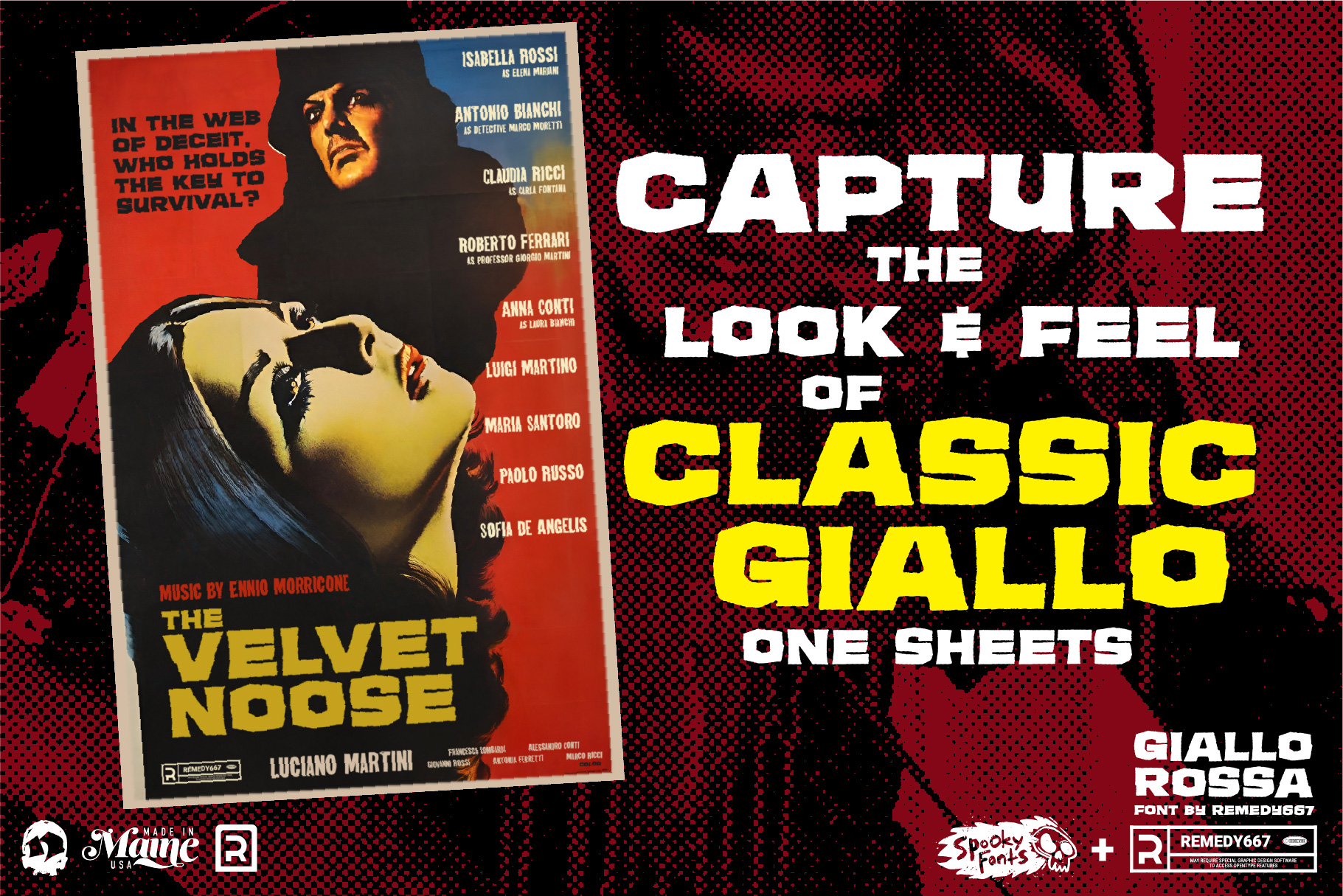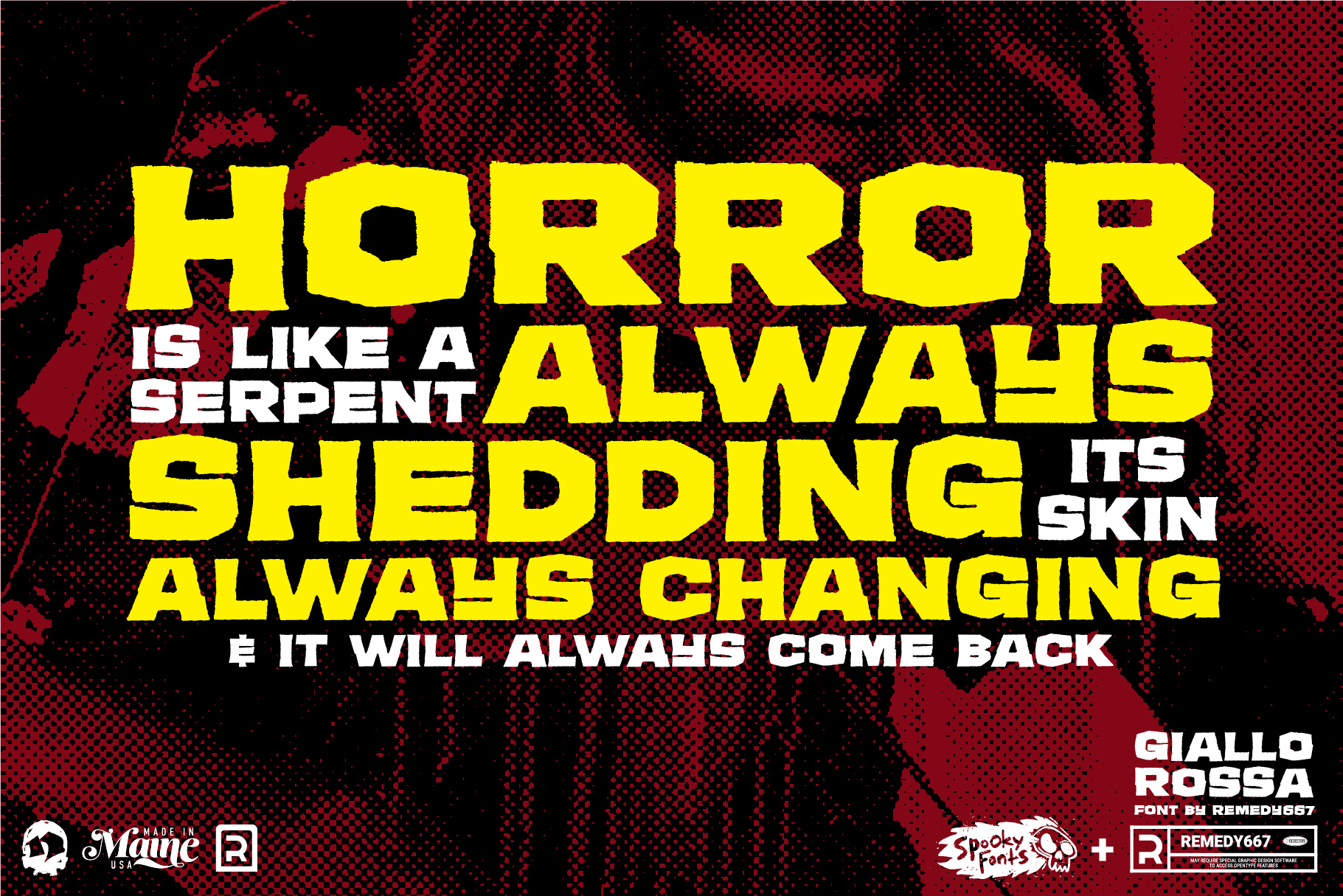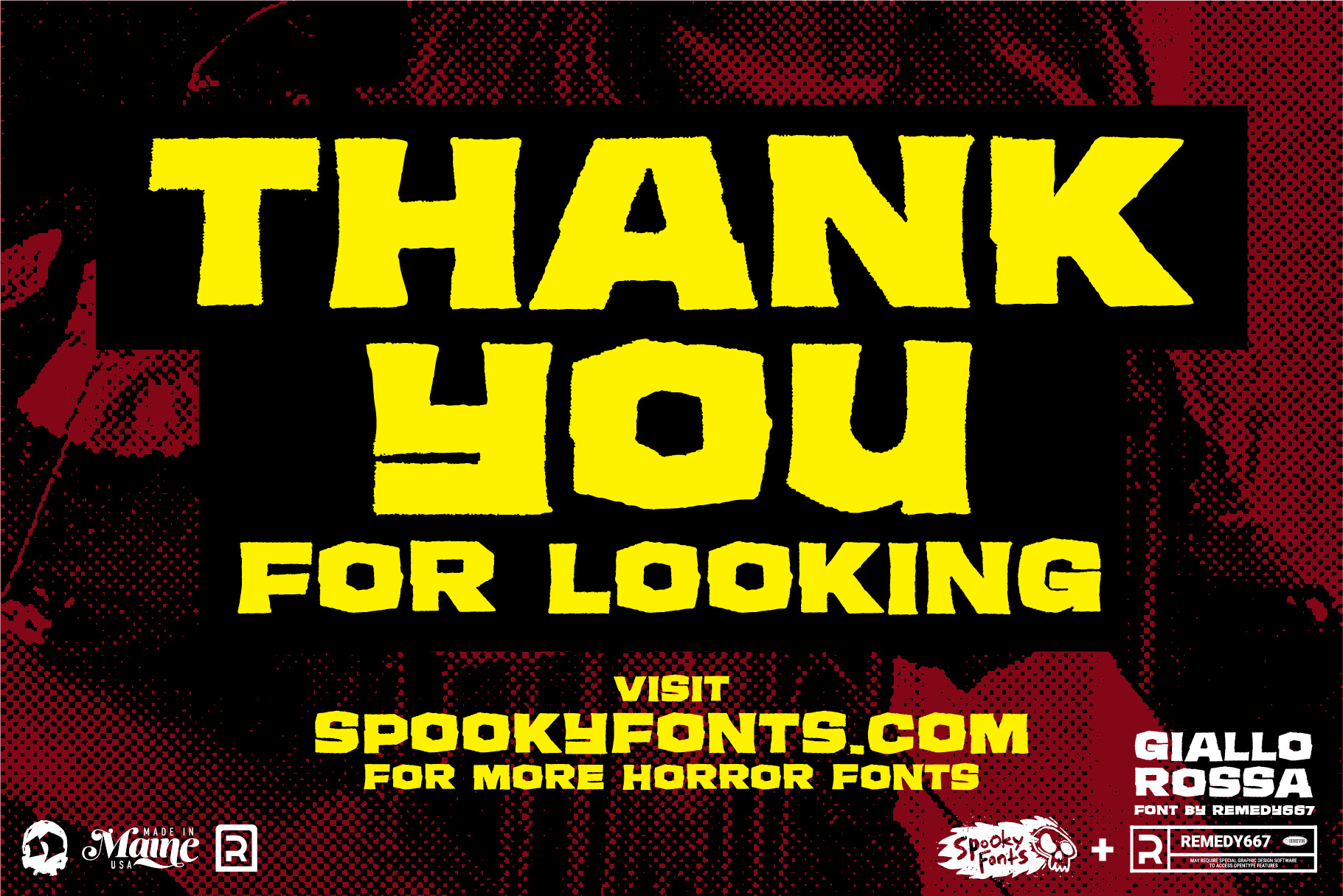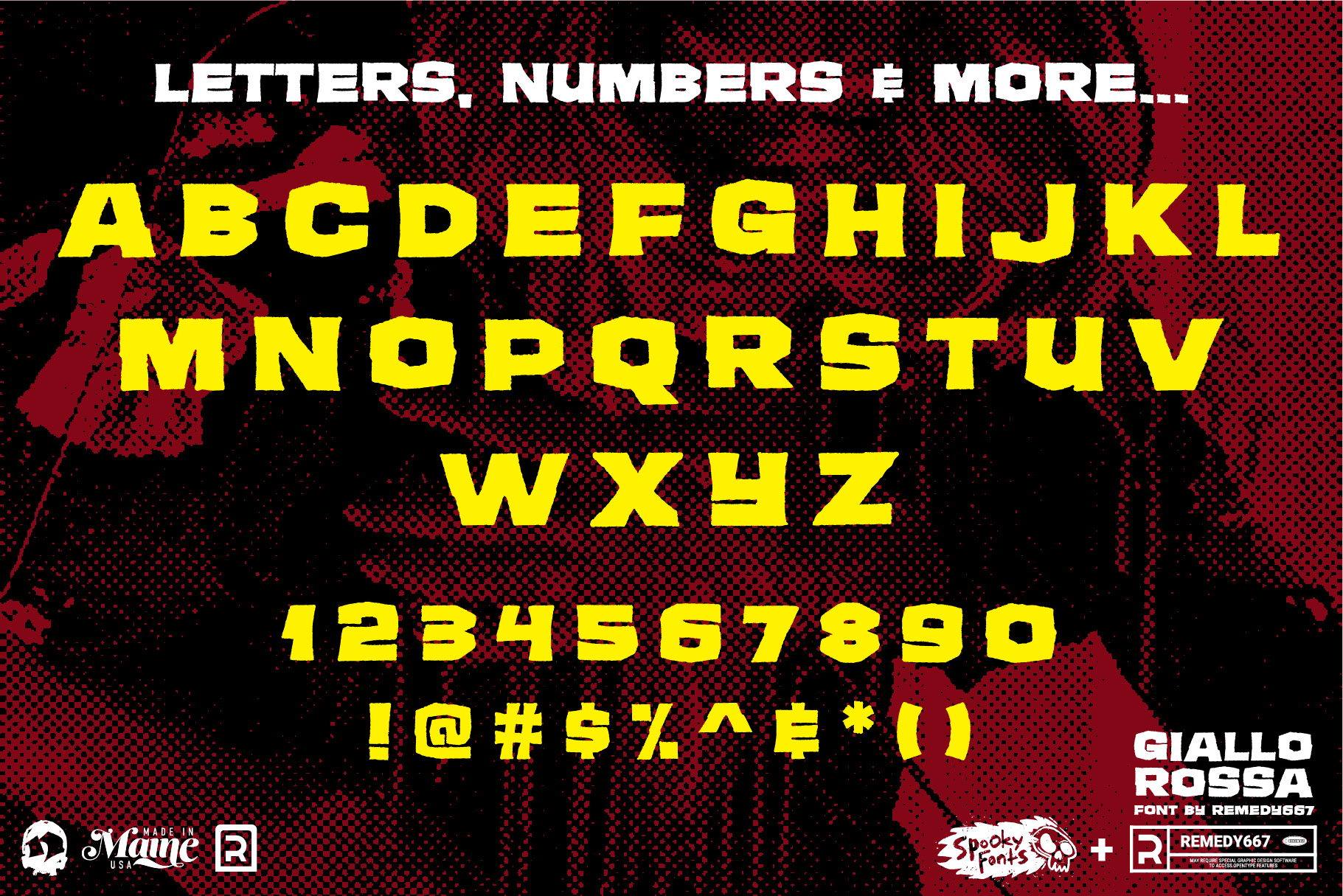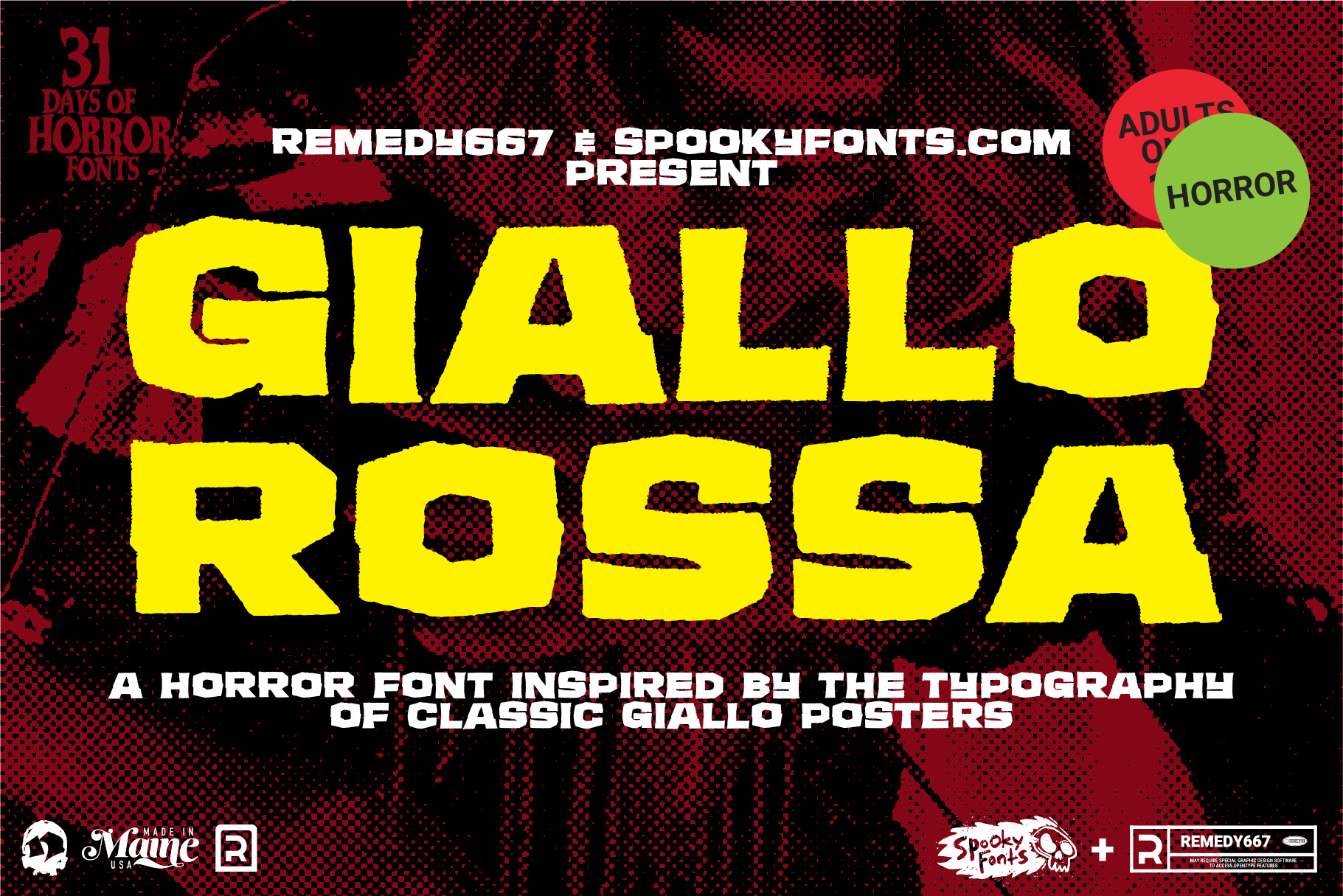
Giallo Rossa
Giallo Rossa: Chilling 70s Italian horror font.
Step into the chilling world of 70s Italian horror with Giallo Rossa, a giallo inspired typeface. This macabre creation captures the essence of classic Italian giallo films, evoking a sense of foreboding and terror in every letter. With its sharp edges and jagged lines, Giallo Rossa has an unsettling energy that will leave you mesmerized.
Immerse yourself in a typographic nightmare as you unleash the power of Giallo Rossa. Its letters embody the twisted beauty of giallo cinema – every curve reminiscent of a shadowy figure lurking in the dark corners. No matter what you’re designing, Giallo Rossa is your perfect accomplice. This horrifying typeface will set your creations apart from the mundane. Beware though: once you delve into Giallo Rossa‘s sinister embrace, there’s no turning back!